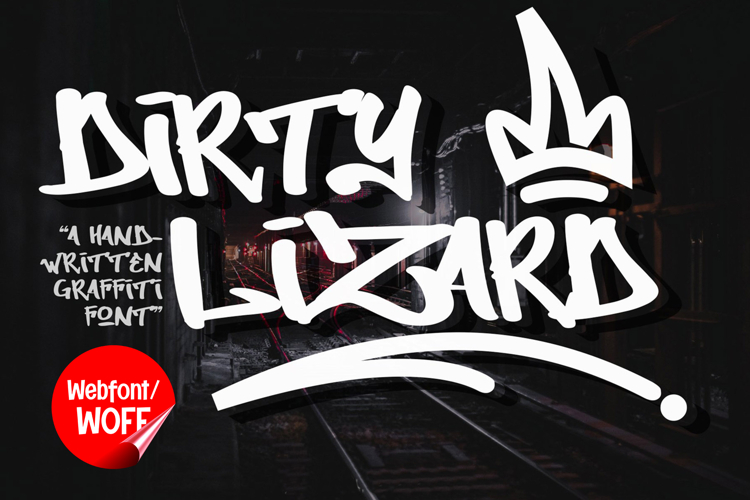
Dirty Lizard | Monoline Graffiti Webfont for Urban Street
Dirty Lizard is a monoline graffiti webfont designed to bring authentic street-art energy and clean urban aesthetics into modern website design. Inspired by freestyle marker tags, underground graffiti culture, and smooth handwritten street lettering, this font features continuous monoline strokes and expressive movement that create a bold and eye-catching visual identity. It is an excellent choice for projects that aim to deliver authentic graffiti visuals with modern street-style character and creative flexibility.
Dirty Lizard includes a complete set of uppercase characters designed with monoline graffiti aesthetics. The letterforms feature smooth curves, flowing strokes, and energetic structures that create a stylish street-art appearance inspired by marker tags and urban calligraphy. These characteristics make it ideal for headlines, banners, hero sections, promotional graphics, and featured content where strong urban visuals are needed.
In addition to letters, the font includes numbers and punctuation, allowing flexible usage across various parts of a website. It works well for streetwear branding, gaming websites, music platforms, hip hop projects, skateboarding graphics, and creative portfolios. Each character maintains a consistent monoline graffiti style, ensuring a cohesive and unified visual identity throughout the design.
With multilingual support, Dirty Lizard includes a wide range of accented characters, making it suitable for international websites and global audiences. This ensures content remains clear and visually consistent across different languages while preserving the expressive and urban graffiti aesthetic.
The monoline graffiti style of Dirty Lizard makes it especially suitable for urban-themed websites, entertainment campaigns, youth-oriented branding, and creative digital projects. Its flowing monoline structure creates a modern street-art atmosphere that helps websites stand out in visually competitive environments. The graffiti-inspired forms add movement, energy, and authentic underground character while maintaining a cleaner and more balanced appearance.
Despite its decorative and expressive appearance, Dirty Lizard is designed with readability in mind. The spacing and proportions are carefully balanced to ensure clarity, particularly in display sizes. This allows designers to use the font effectively for impactful headings and short content without sacrificing usability.
Dirty Lizard is a webfont that combines monoline graffiti aesthetics with modern digital performance. Its smooth strokes, expressive movement, and urban character create a distinctive typographic presence that enhances website design. For projects that require a clean, stylish, and visually engaging graffiti font, Dirty Lizard offers a versatile and powerful solution.